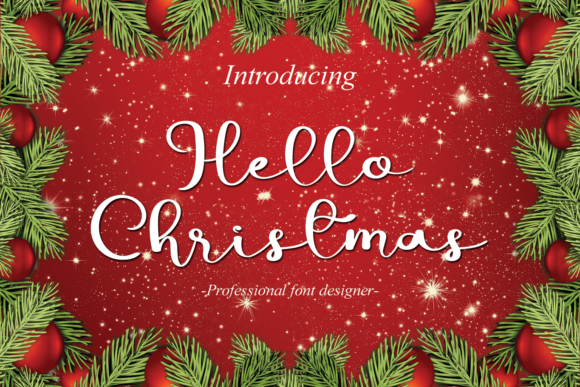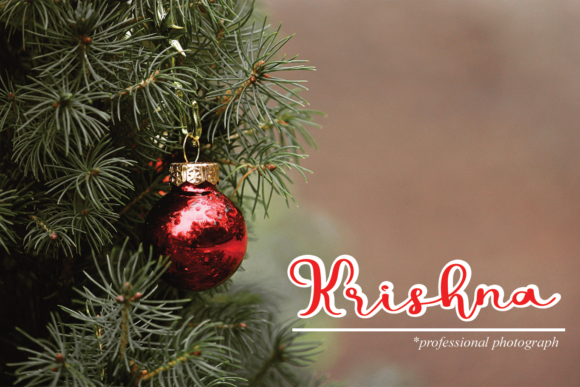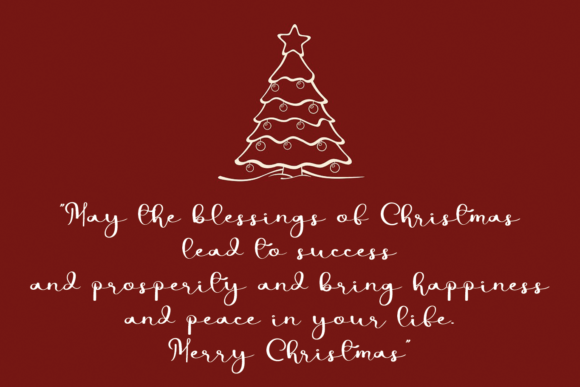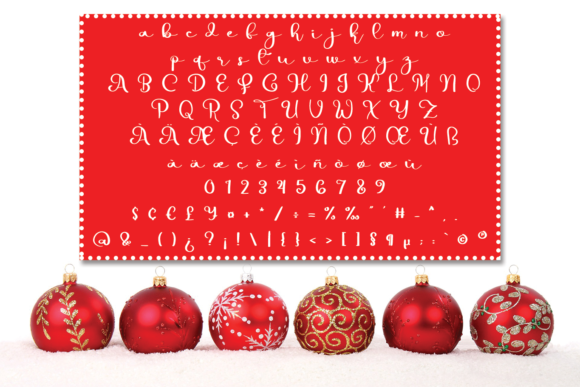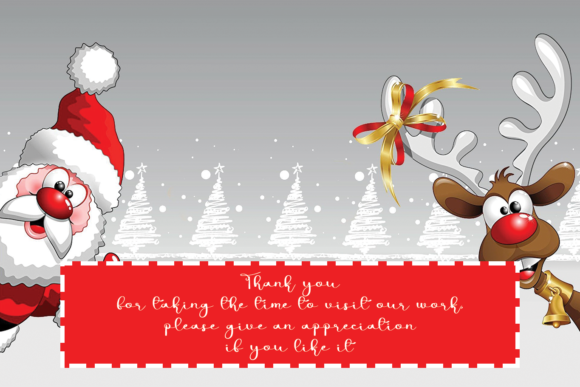
Hello Christmas Font
About Hello Christmas Font
Hello Christmas is a fashionable script font. This font is neatly crafted and highly detailed. Whatever the topic, this font will be a wonderful asset to your font library, as it has the potential to enhance any creation.